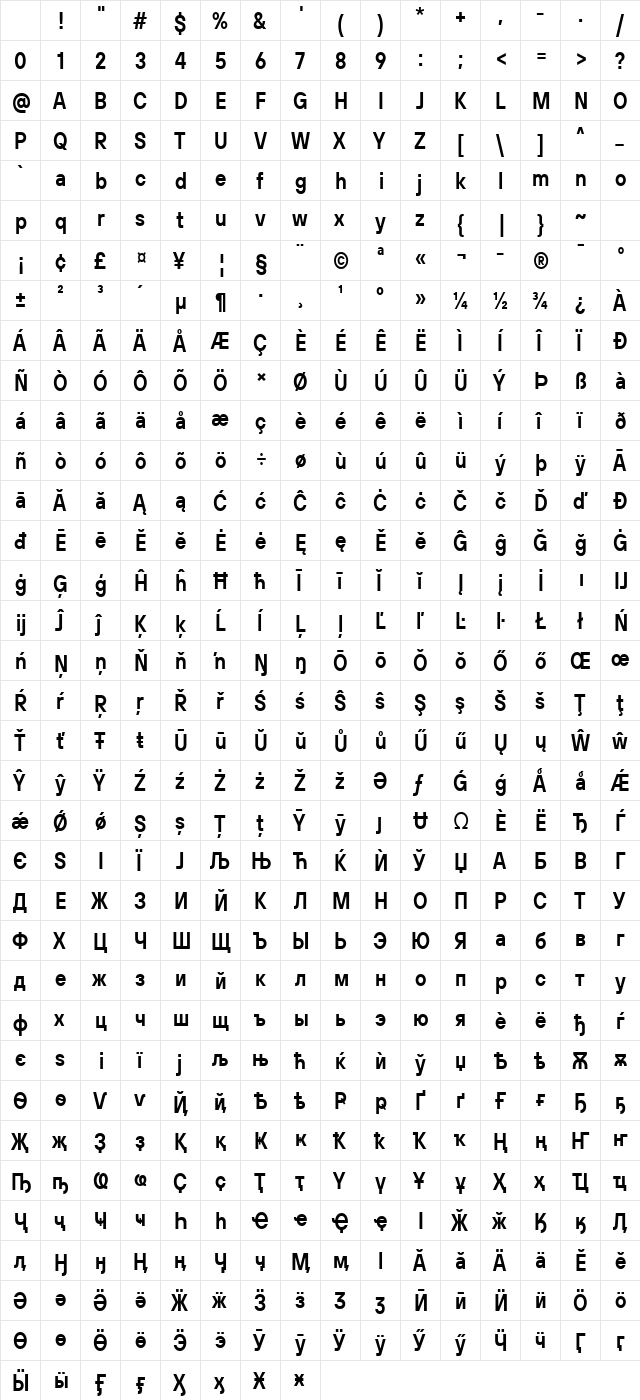
Complete TT Hoves Pro Trl Cnd DemiBold glyph index. Displaying only characters natively supported by TT Hoves Pro Trl Cnd DemiBold font.
TT Hoves Pro Trl Cnd is a composed and adaptable typeface that performs quietly and consistently across a wide range of design contexts. Its bold stroke weight gives it real presence on the page.